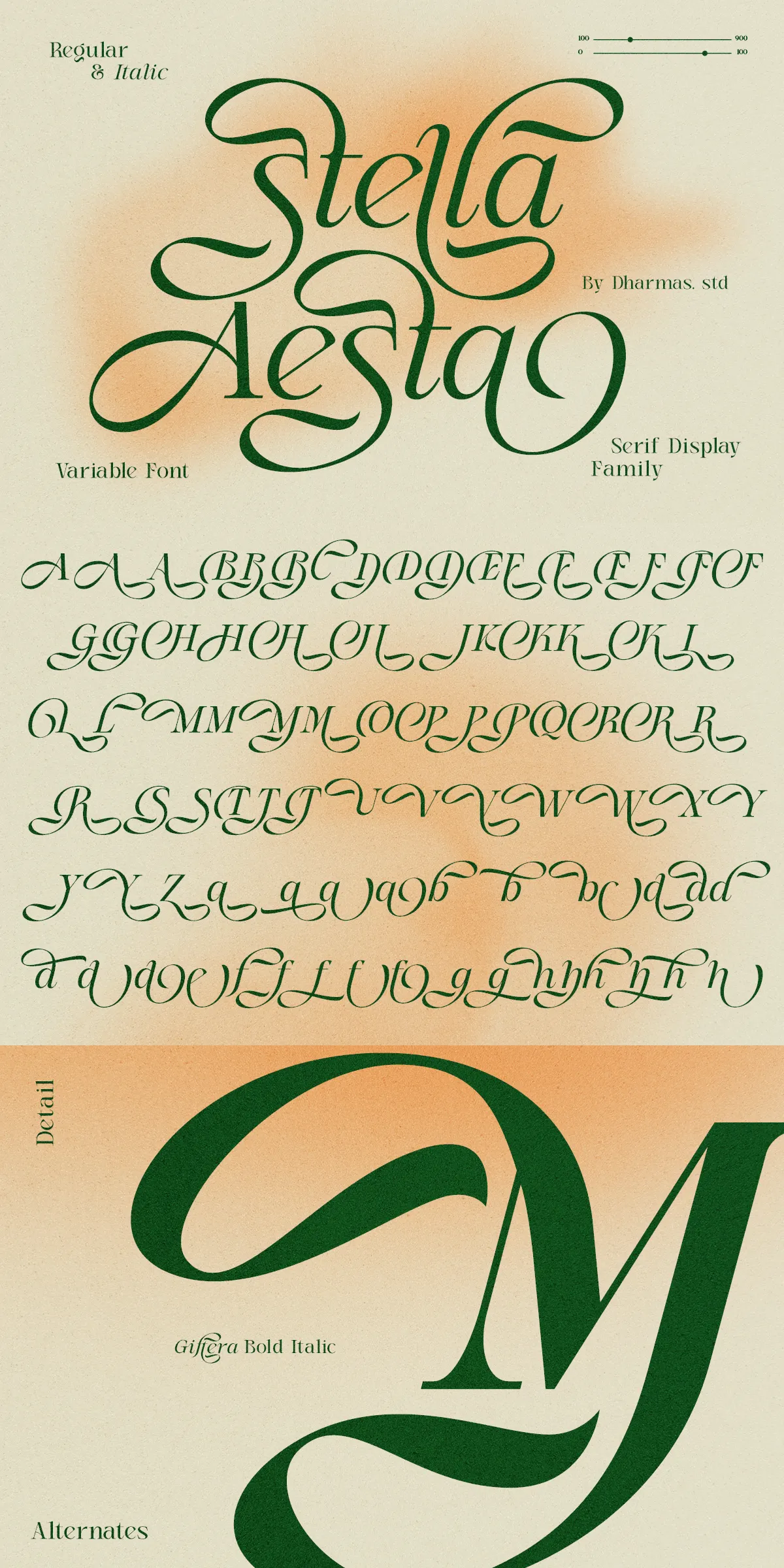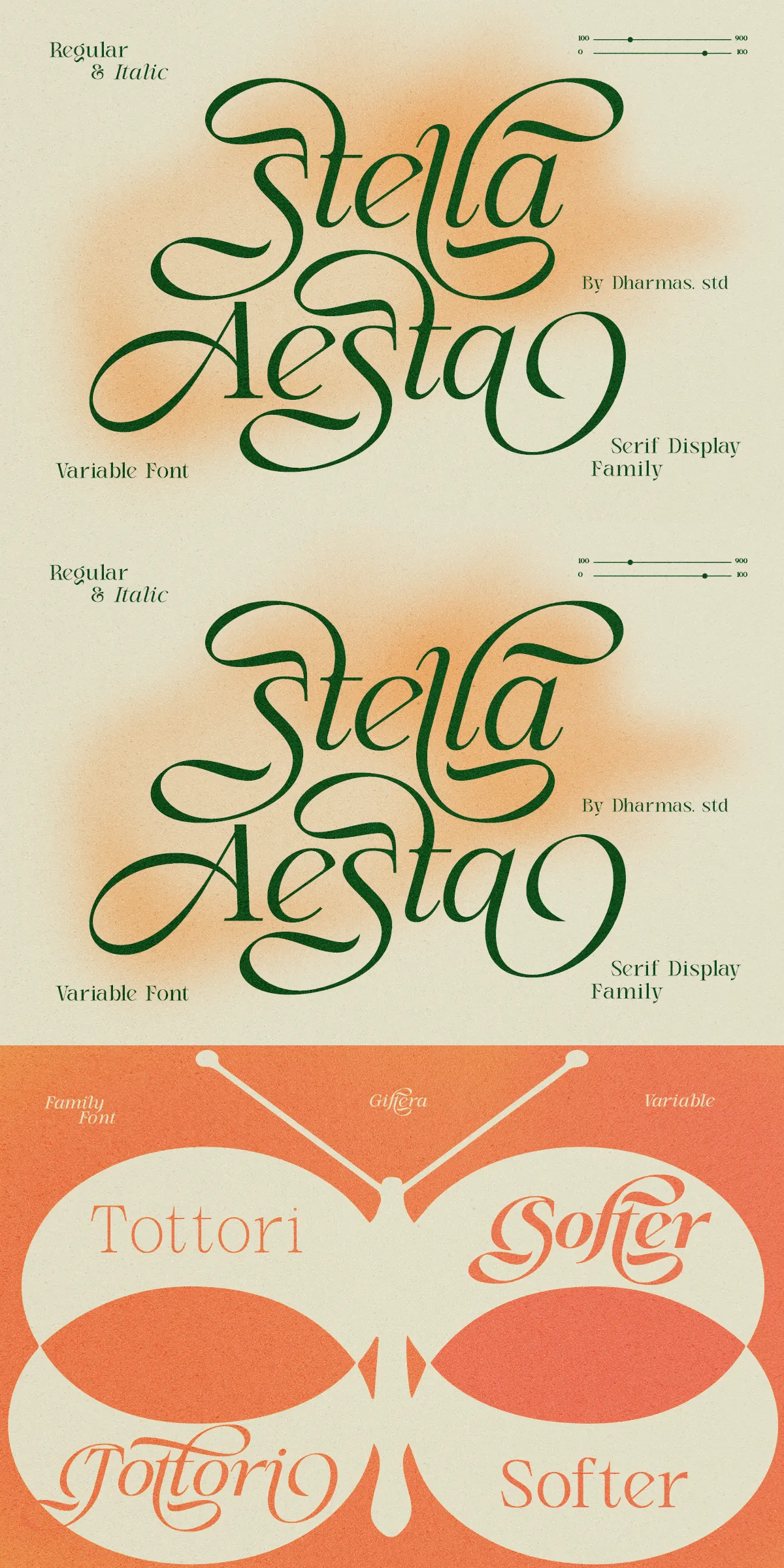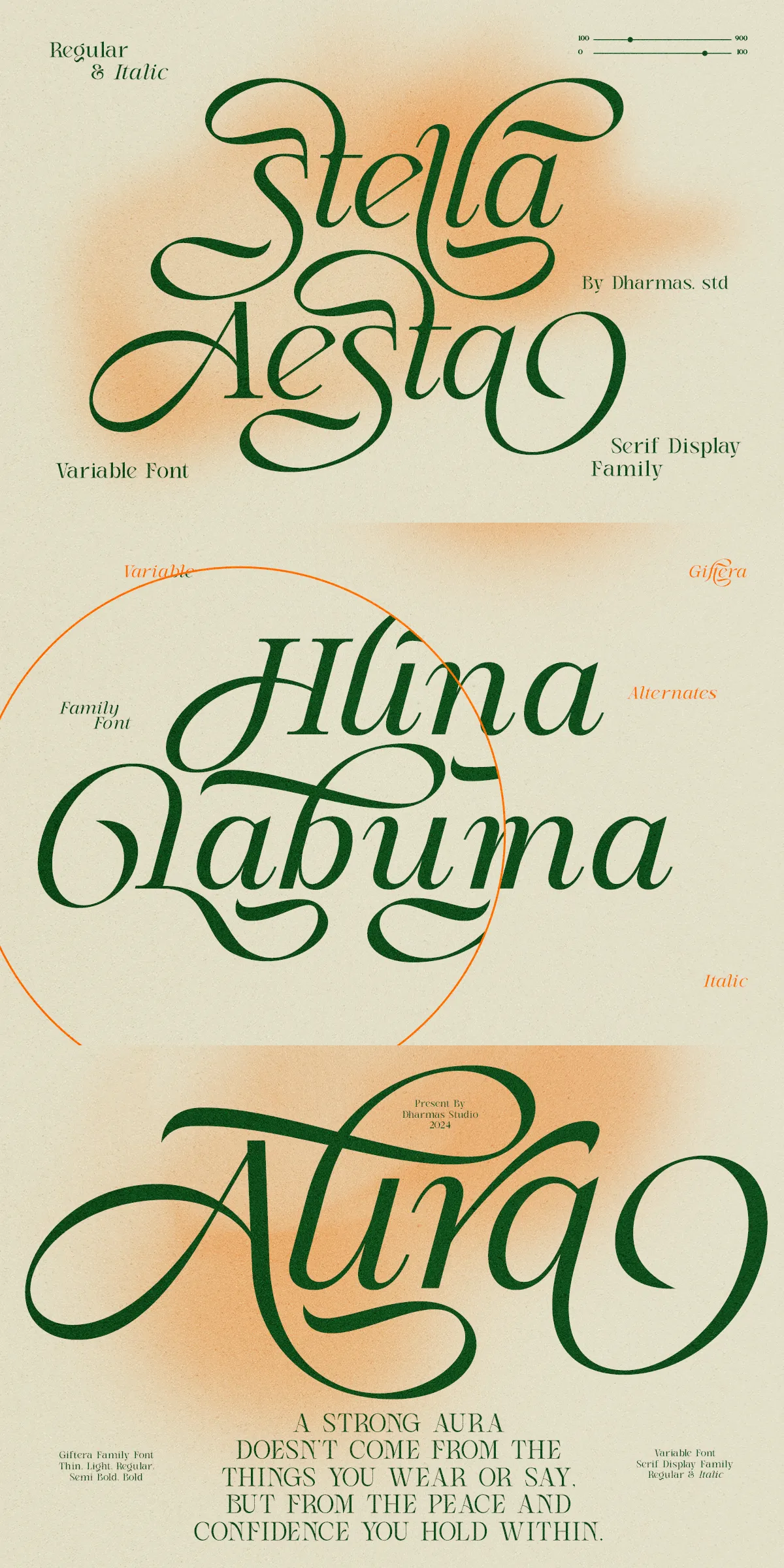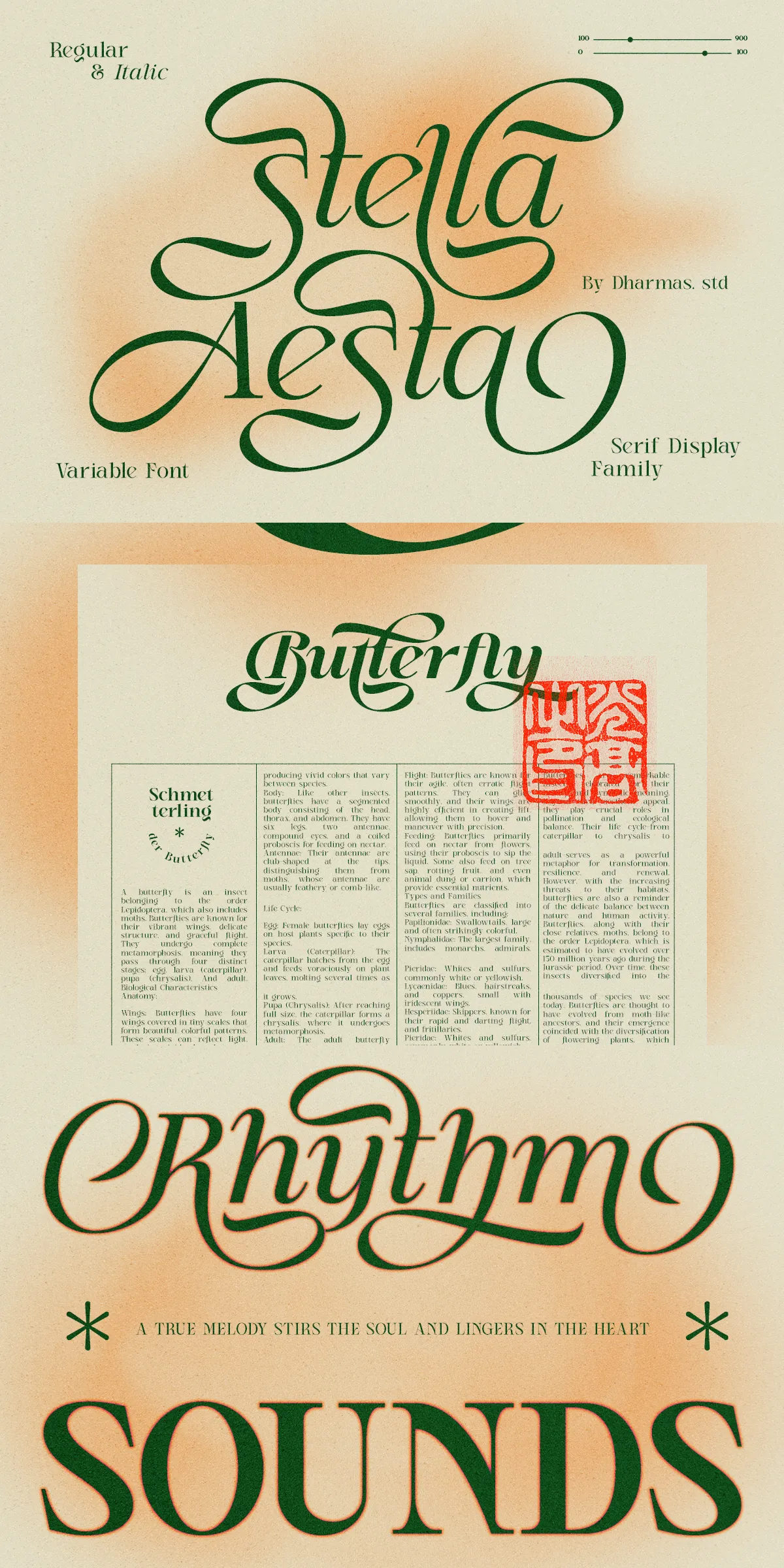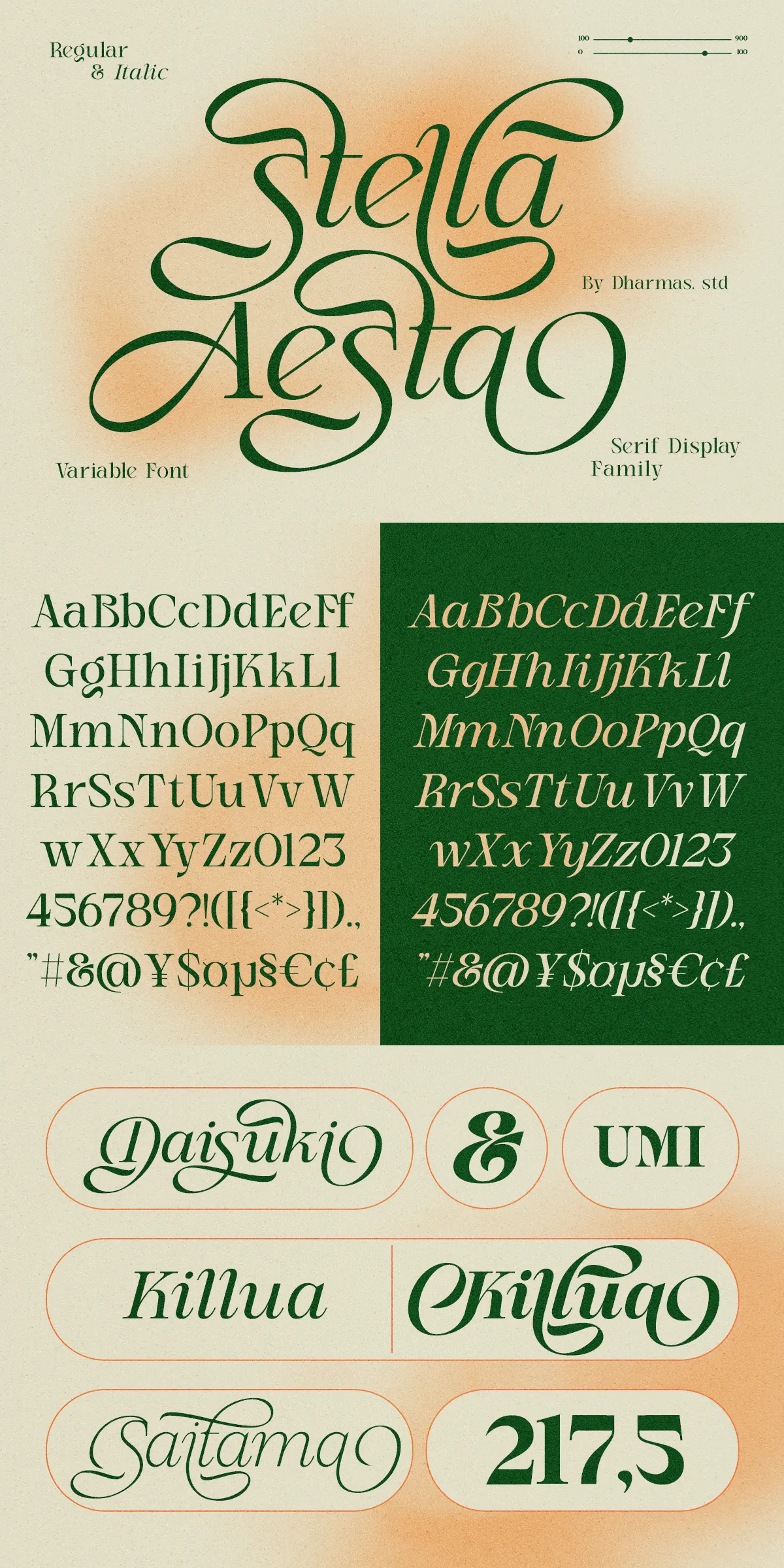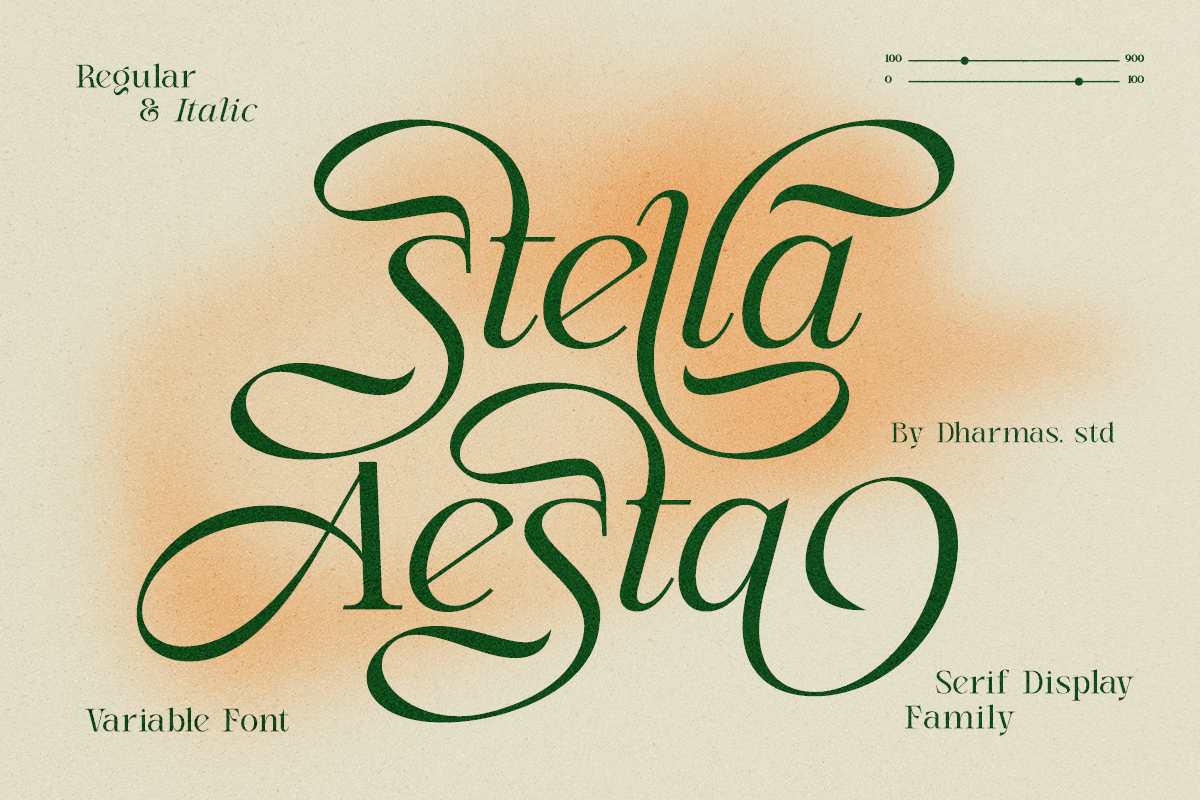
Unleash the magic of motion and grace with Stella Aesta, a breathtaking serif display font family that transforms every word into a living work of art. Inspired by the delicate flutter of butterfly wings, Stella Aesta doesn’t just display text—it dances across the page. Each letterform is intricately designed with flowing swashes, soft curves, and refined flourishes that lend a dreamlike, timeless elegance to your creations.
A Font Built for Storytelling and Impact
Stella Aesta is not merely a typeface—it’s a creative narrative tool. Whether you’re crafting luxury branding, designing enchanting wedding invitations, or highlighting powerful quotes, this font commands attention with quiet confidence and emotional depth. Its refined structure and artistic complexity make it ideal for projects that demand both sophistication and soul.
With a total of 10 fonts across 5 weights—Light, Regular, Medium, Semi Bold, and Bold—paired with both Regular and Italic styles, Stella Aesta gives you powerful control over tone and hierarchy. The Italic version alone features **over 157 unique swashes and ligatures**, offering endless opportunities to personalize your typography and elevate any design beyond the ordinary.
Rich Feature Set for Professional Designers
- 5 Weight Variants – Create strong visual contrast and depth in headings, subheadings, and body text with full weight control.
- 157+ Unique Swashes & Ligatures – Generate stunning, handcrafted-looking text without the need for manual design.
Ideal for a World of Creative Applications
Stella Aesta shines brightest in projects that seek to evoke emotion, charm, and timeless beauty:
- Logo & Brand Identity: Perfect for boutique fashion labels, artisanal brands, perfumes, and luxury goods that want to communicate elegance and uniqueness.
- Wedding Invitations & Stationery: Elevate save-the-dates, seating charts, and ceremony programs with a romantic, dreamlike aesthetic.
- Blog & Social Media Headlines: Use it for featured quotes, title cards, and visual storytelling in Instagram posts, Pinterest graphics, and YouTube thumbnails.
- Editorial & Magazine Design: Ideal for mastheads, pull quotes, article titles, and editorial spreads that aim to captivate and inspire.
- Product Packaging & Labels: Add a premium, handcrafted feel to cosmetics, skincare, candles, and gift boxes.
- Event Branding & Promotions: Bring elegance and visual excitement to concert posters, art exhibitions, and gala event materials.
Why Stella Aesta Is a Design Game-Changer
Stella Aesta doesn’t just look beautiful—it performs flawlessly. It combines the emotional resonance of old-world craftsmanship with the flexibility and accessibility of modern digital type. Its intricate details aren’t just decorative—they serve a purpose, adding rhythm, flow, and personality to any design.
For designers who value both artistry and efficiency, Stella Aesta is more than a font—it’s a creative extension. It empowers you to bring imagination to life with minimal effort and maximum impact.